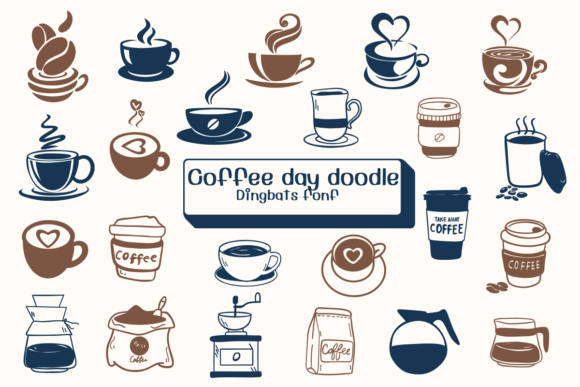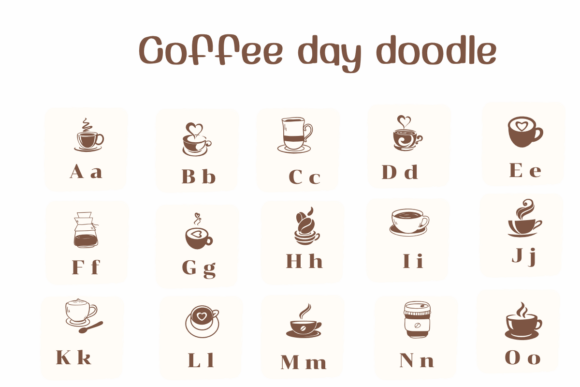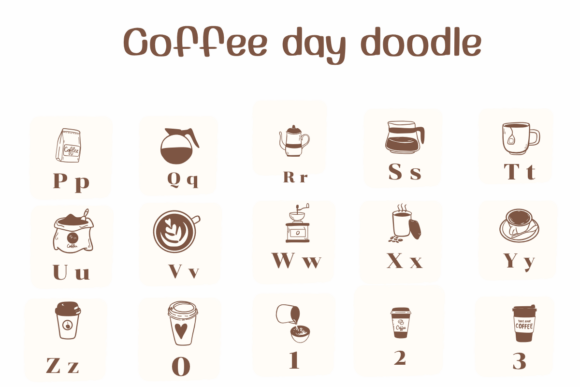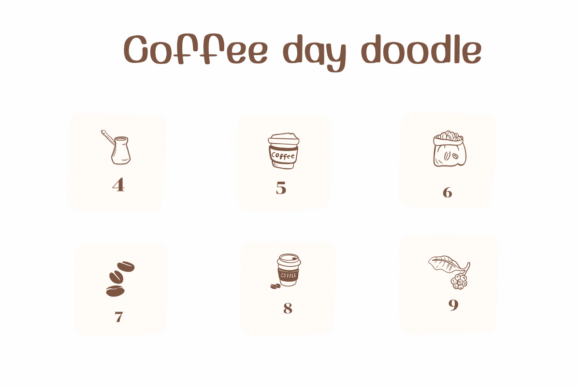
Coffee Day Doodle Font
About the Coffee Day Doodle Font
Explore the possibilities with Coffee Day Doodle Font, a font that offers both beauty and functionality. Coffee day doodle is a dingbats font with a sketched style. This font can enhance your creative projects such as wedding invitations, DIY, crafts, decorations, logos, and many other creative ideas.
Its sketched style makes Coffee Day Doodle ideal for projects requiring a hand-drawn, informal feel. It excels in branding for cafes, artisanal food products, or craft businesses, adding a touch of whimsical charm to logos and packaging. Use it sparingly in headlines or short, impactful text, avoiding body copy or UI elements where readability is paramount.
The font’s playful personality pairs well with clean sans-serif fonts like Open Sans for body text, providing a contrast between the casual doodle and a professional, legible typeface. Alternatively, a classic serif like Garamond could offer a sophisticated counterpoint, lending an air of understated elegance. Avoid pairing it with other highly decorative fonts, which would create visual clutter.
Coffee Day Doodle’s core personality is undeniably playful and friendly, but maintains a degree of approachability. This makes it unsuitable for formal contexts, but perfect for conveying warmth and approachability in projects needing a handmade, charming visual style.
Coffee Day Doodle Font Example